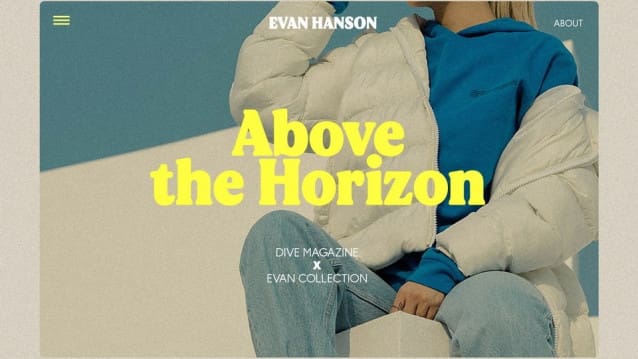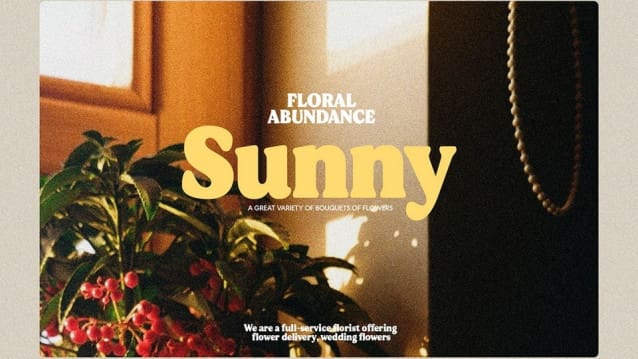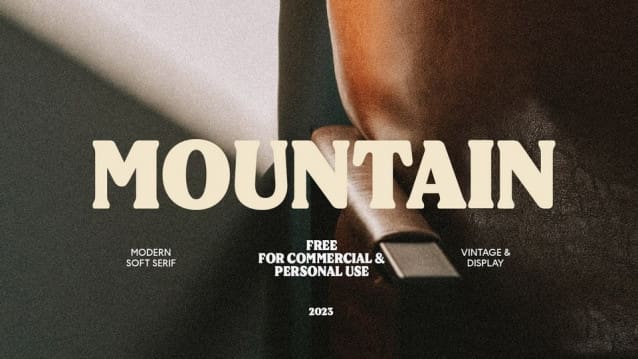
MADE Mountain Font, is a modern soft serif typeface with vintage vibe. It is conceived as a great font for editorial use, perfect for display and packaging usage too, where readability and personality must match design space needs.
| Designer Name: | MADE Type |